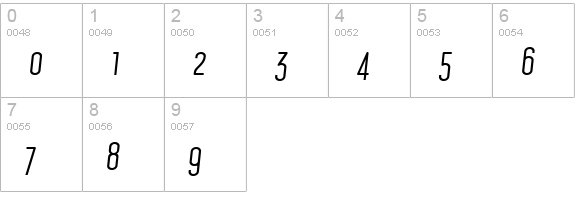
ConcursoItalian BTN Oblique is a distinctive, italic variant in the ConcursoItalian typeface family \xE2\x80\x94 well suited to design and typography projects.
ConcursoItalian BTN Oblique font is a modern and stylish typeface that exudes elegance and sophistication. Its sleek design and slanted letterforms make it perfect for adding a touch of flair to any project. This font is versatile and can be used for a variety of purposes, from branding to editorial design. The best part about ConcursoItalian BTN Oblique font is that it is available for free download at FontsMarket.com. This means you can easily access this high-quality font without any cost, making it a valuable addition to your font library. Don't miss out on the opportunity to enhance your designs with this beautiful and eye-catching typeface. Download ConcursoItalian BTN Oblique font today and elevate your projects to the next level.